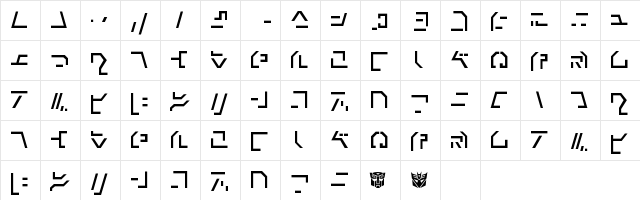
Modern Cybertronic Regular Free Font
Modern Cybertronic Regular
Foundry: Neale Davidson
Designer: Neale Davidson
Design Context for Modern Cybertronic
Modern Cybertronic has a distinctly futuristic character, with geometric precision and clean angles that feel at home in technology, gaming, and sci-fi contexts.